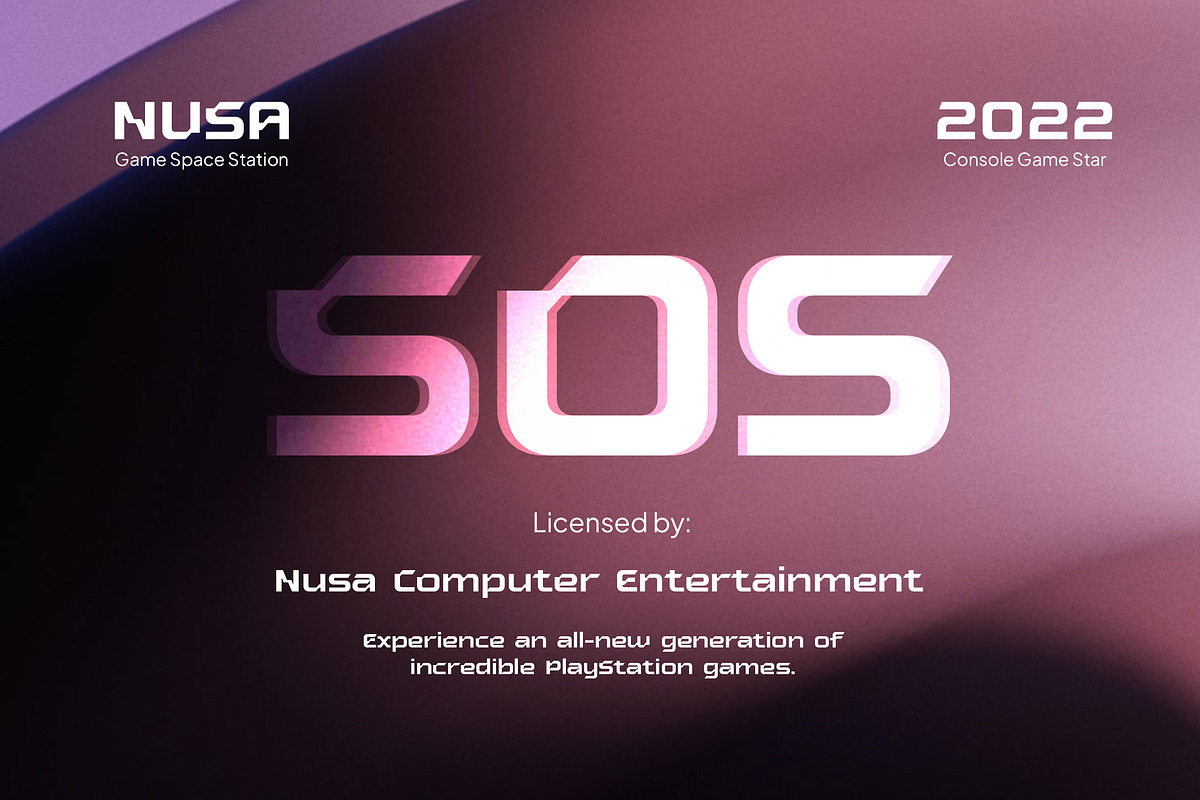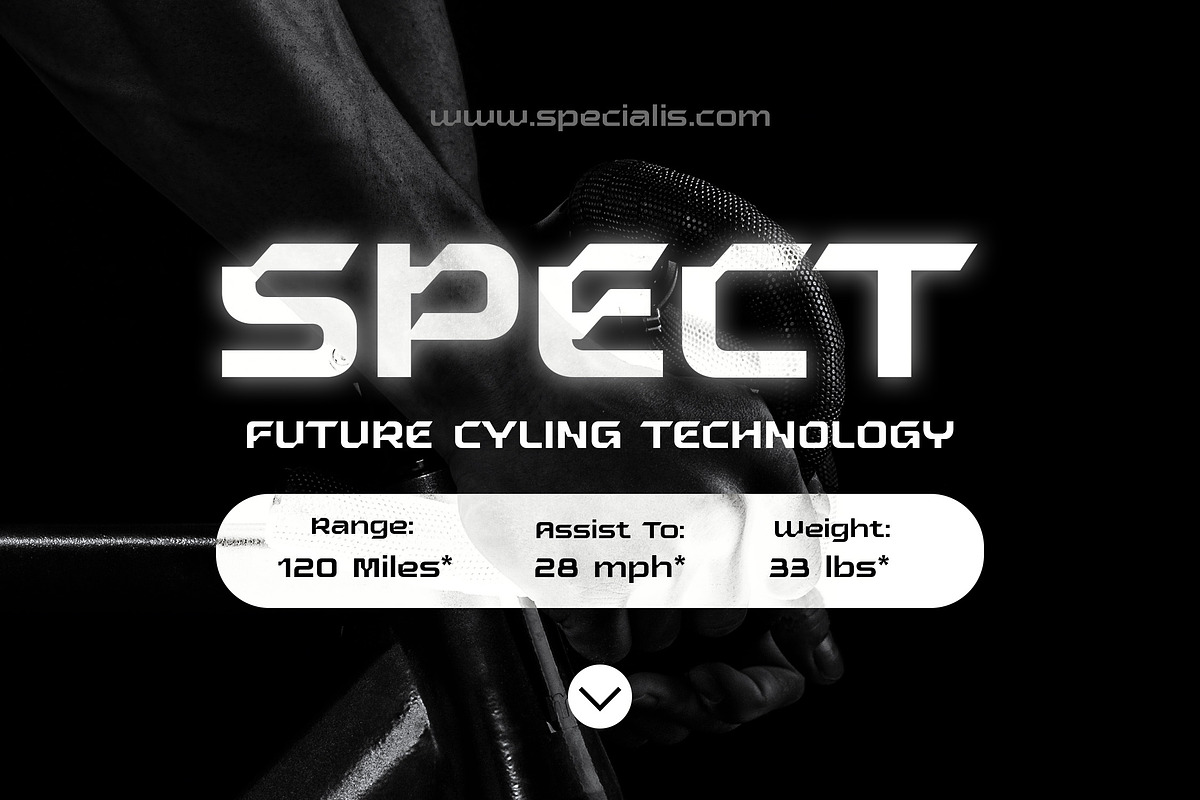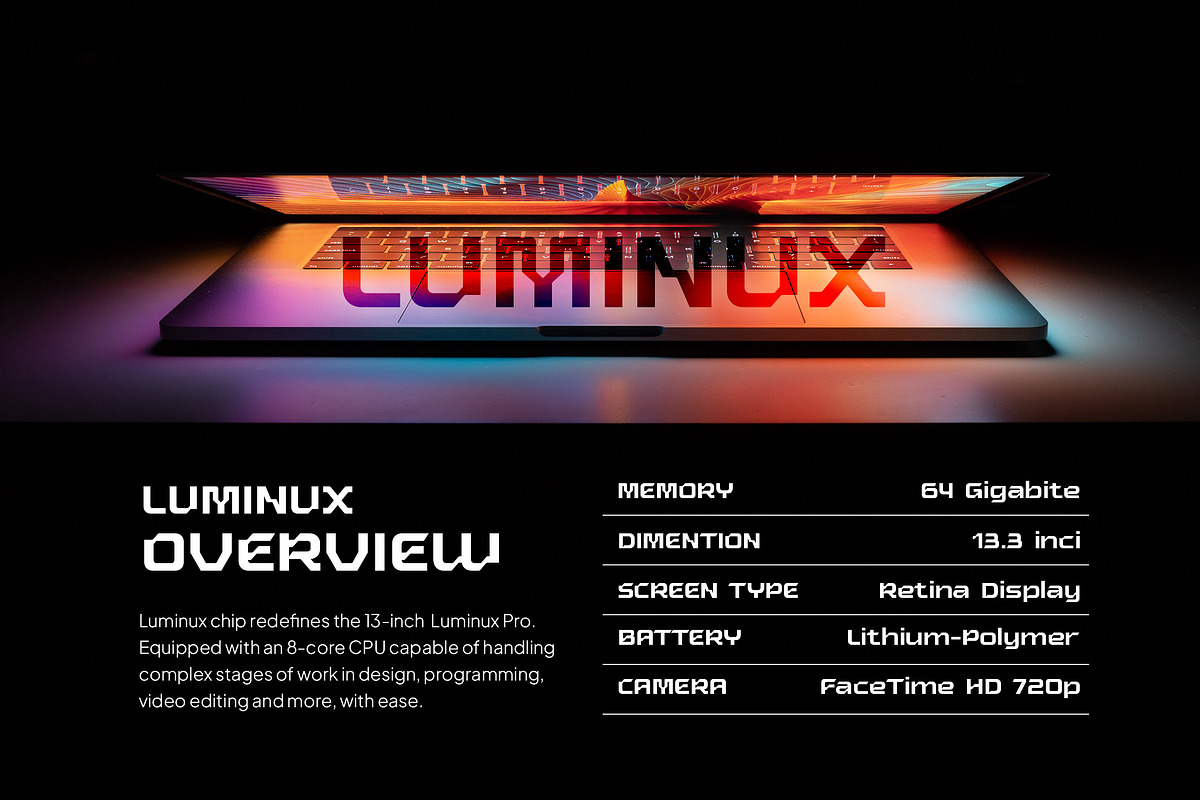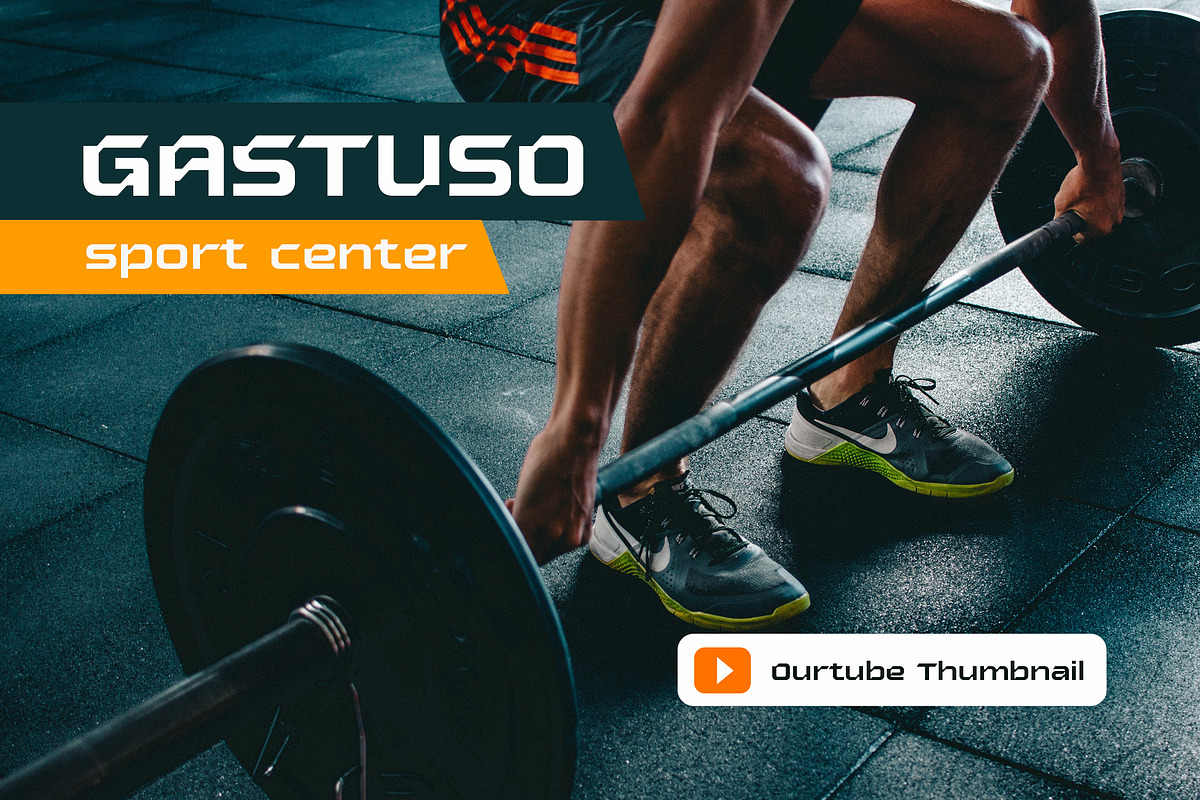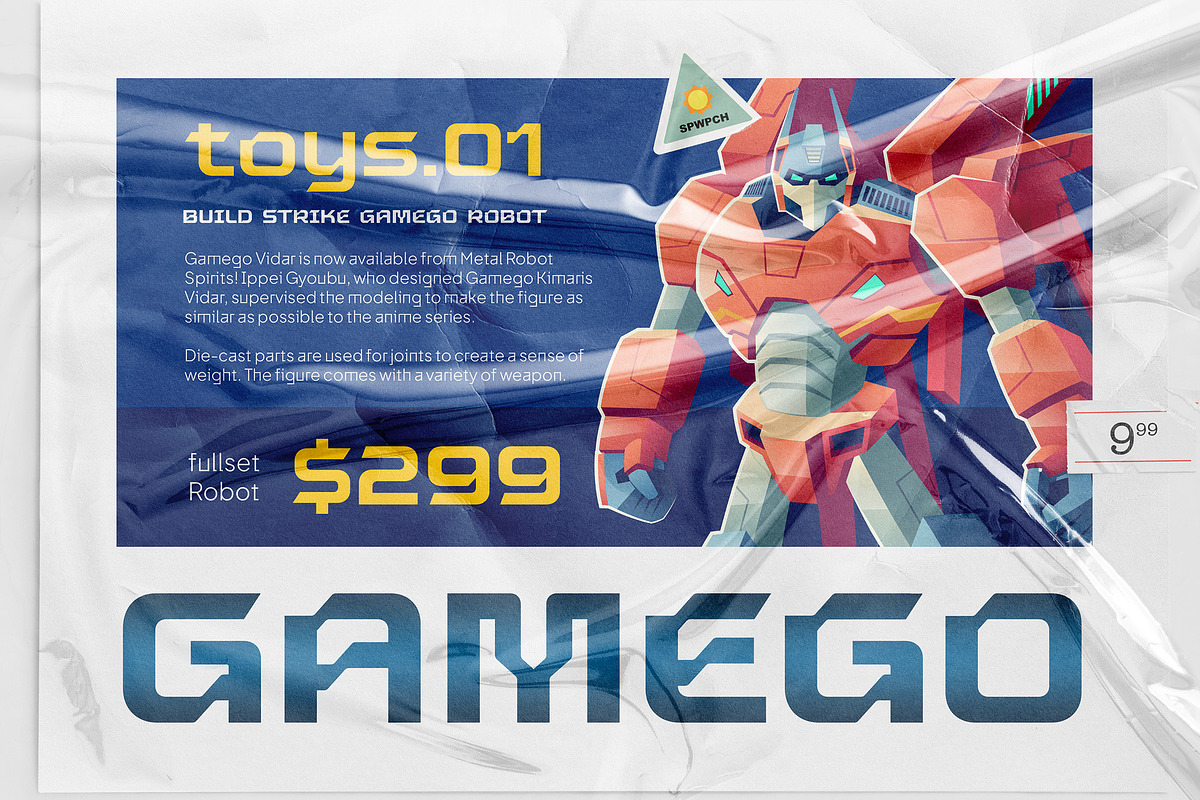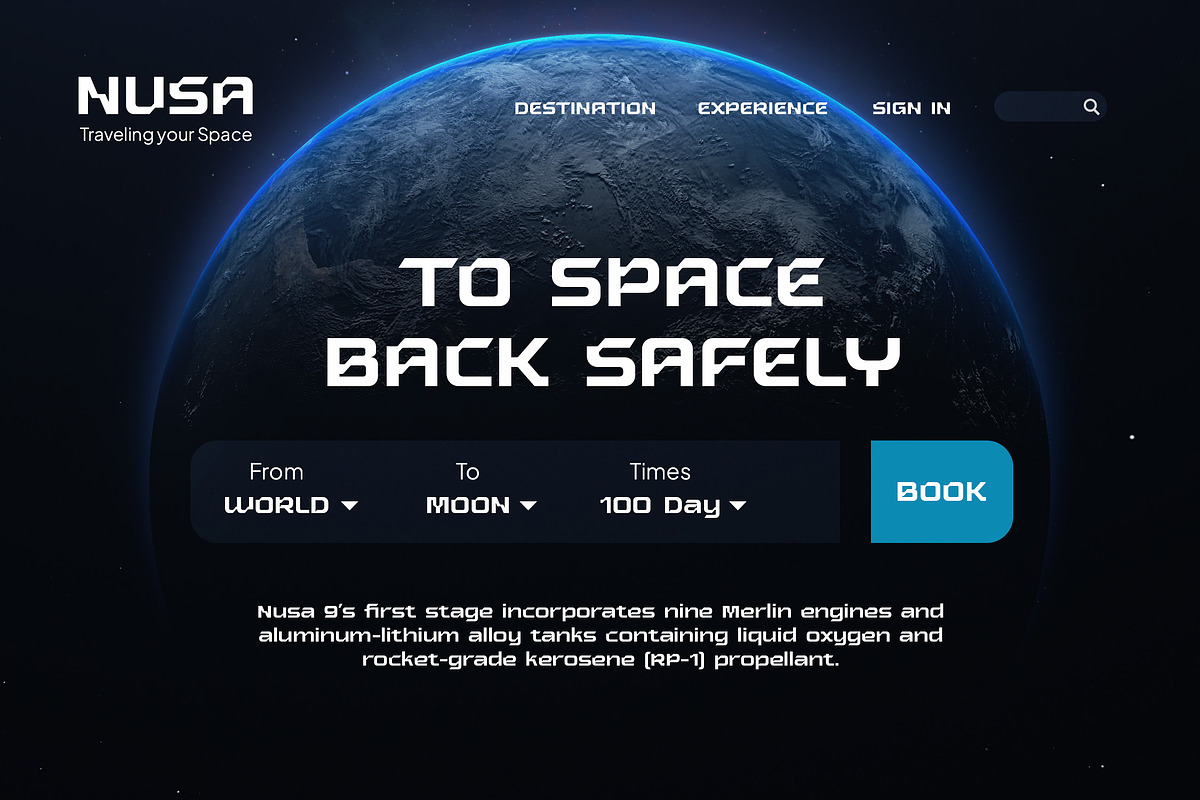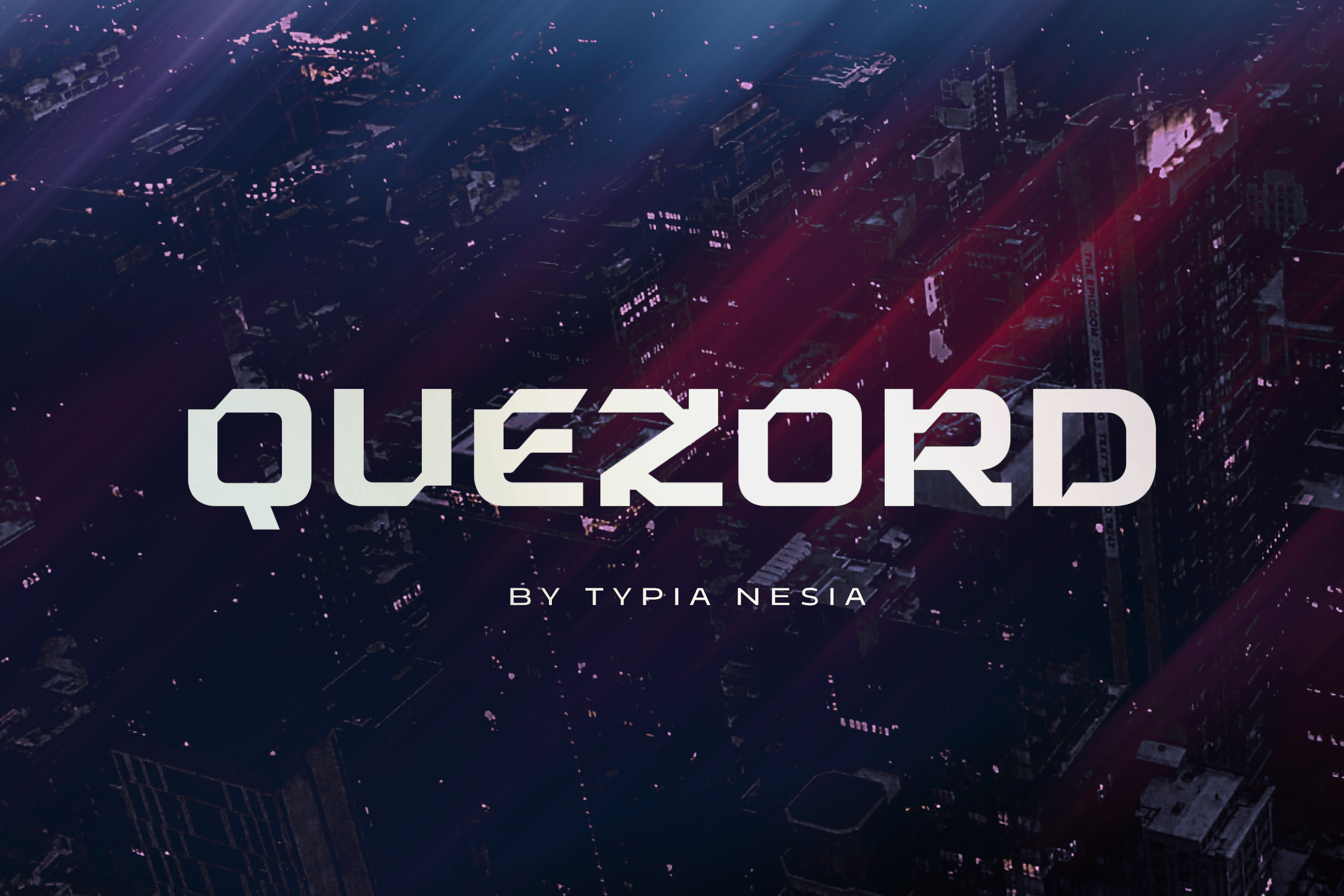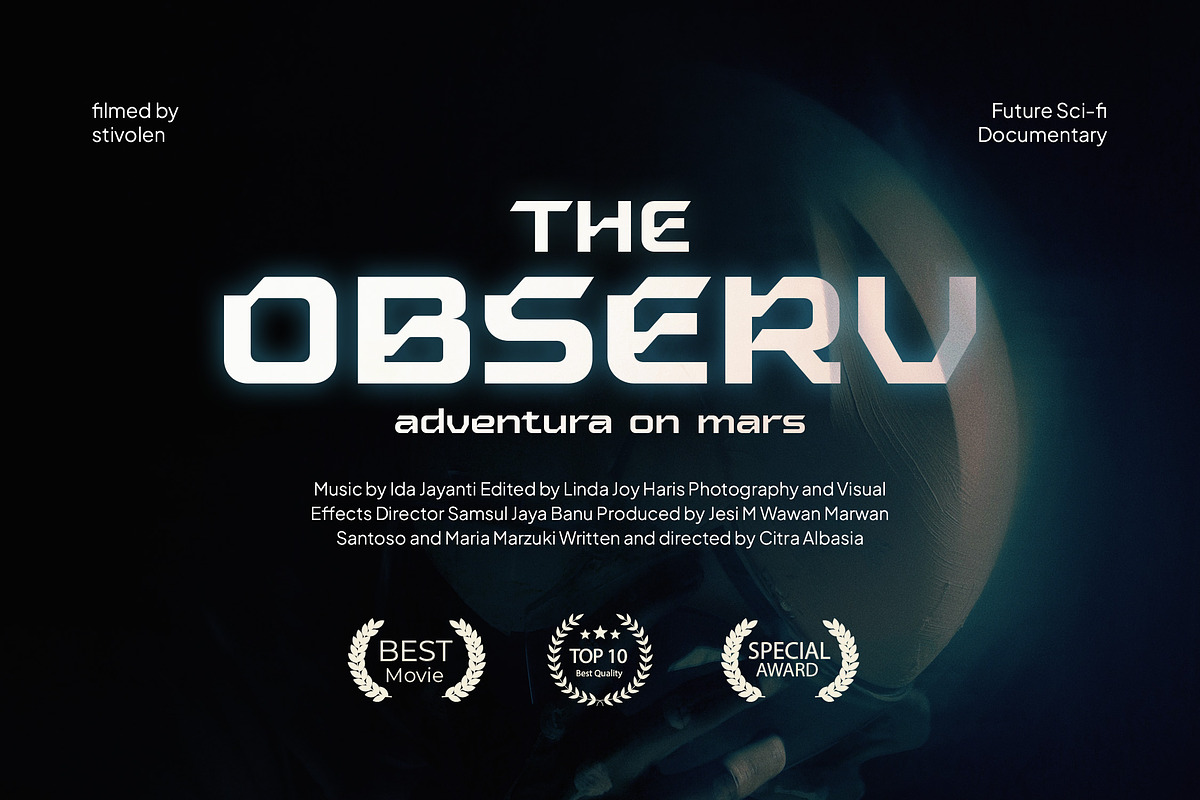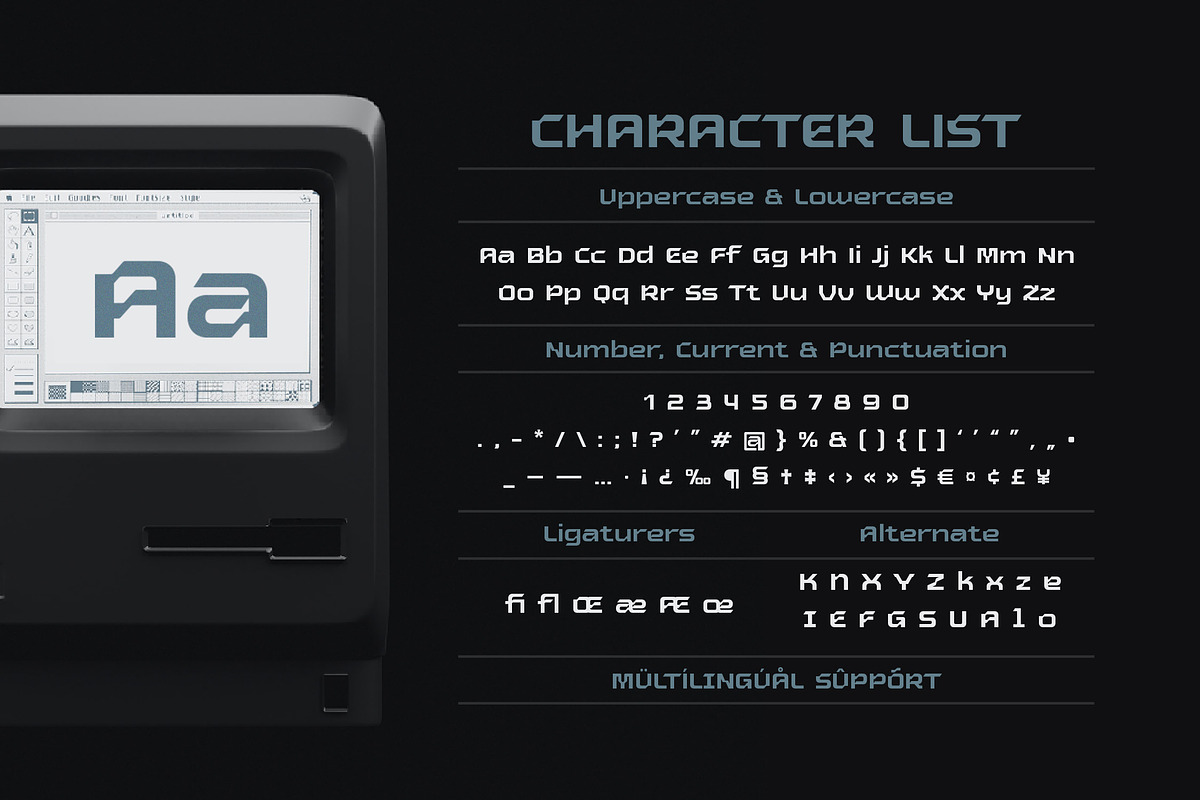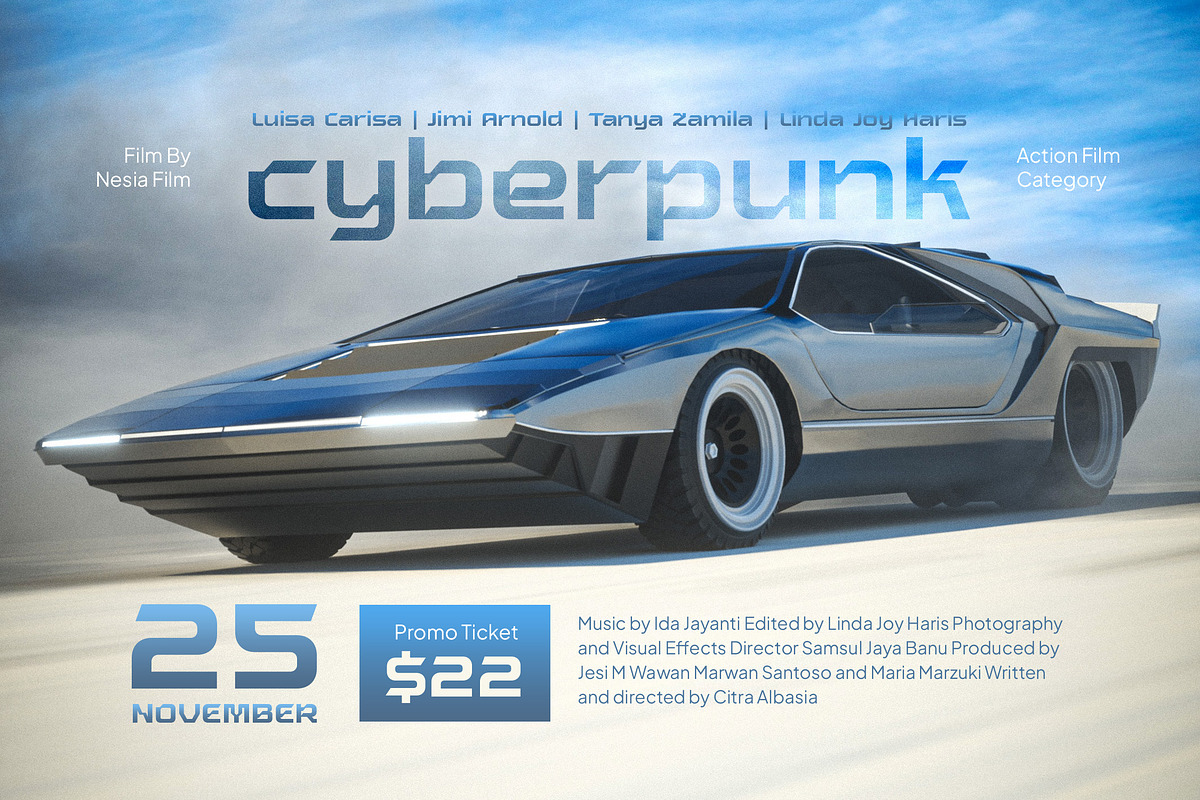
Quezord - Futuristic Font
Quezord - Techno Futuristic / Sci-fi Game Font - Bold / Black Display Sans Serif
Quezord Game Sans Serif Display Font is perfect for your up coming projects. Such as logo branding, editorial design, esport design, 80s retro design, game / gaming industry, sport racing, super car brand, esport branding, music poster, website design, modern advertising design, poster quote, book/cover title, special events and any more.